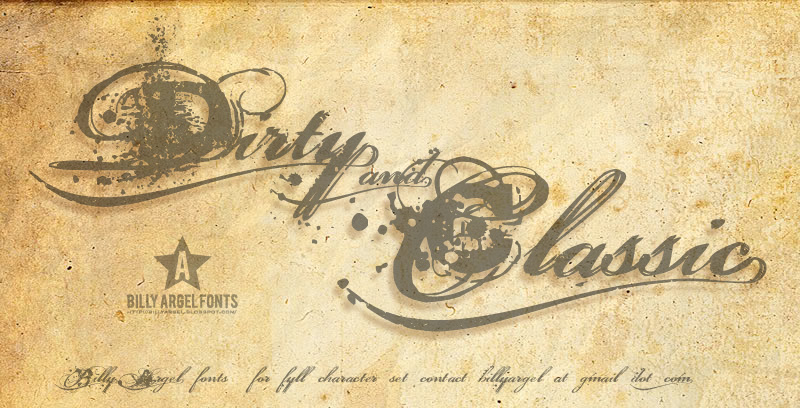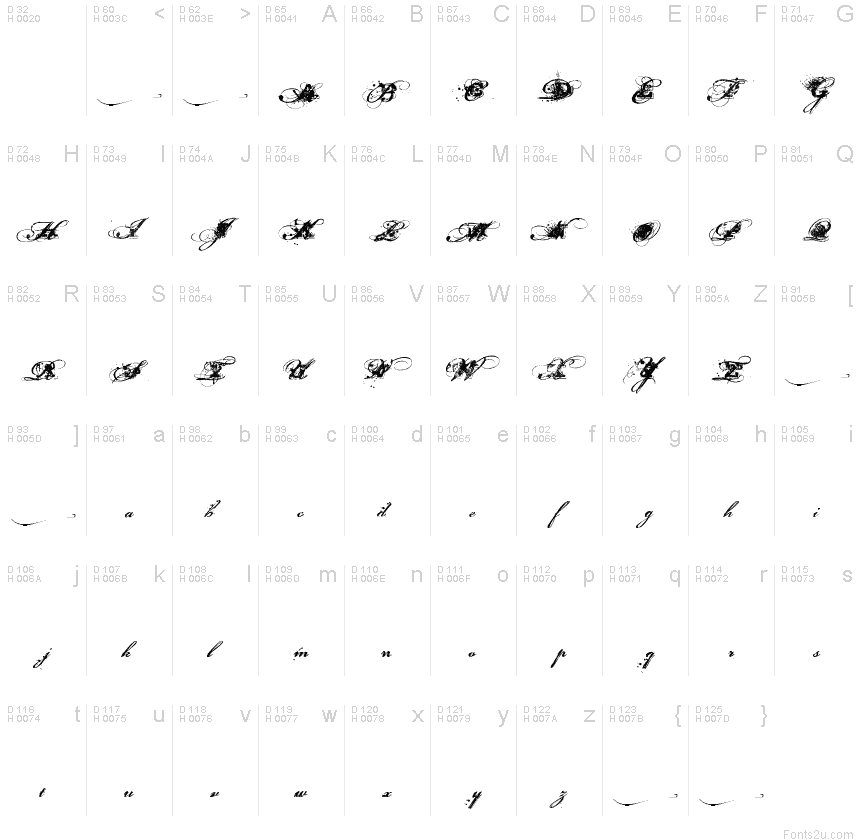
Dirty and Classic by Billy Argel is a free distorted display font built on ornate calligraphic forms. Sweeping loops and sharp flourishes collide with ink spatters and scratched black patches, making the lettering look both elaborate and damaged.
Album packaging is its strongest medium, especially for rock or industrial music, and the same tangled texture suits concert posters and fashion editorials. For nightclub branding or apparel labels, the clash of formal flourishes and abrasion can become the product identity.
Презентация и наглядный образец шрифта Dirty and Classic
Таблица символов шрифта Dirty and Classic
Таблица символов Dirty and Classic: Базовая латиница, страница 1
Глифы шрифта Dirty and Classic — Базовая латиница, страница 1